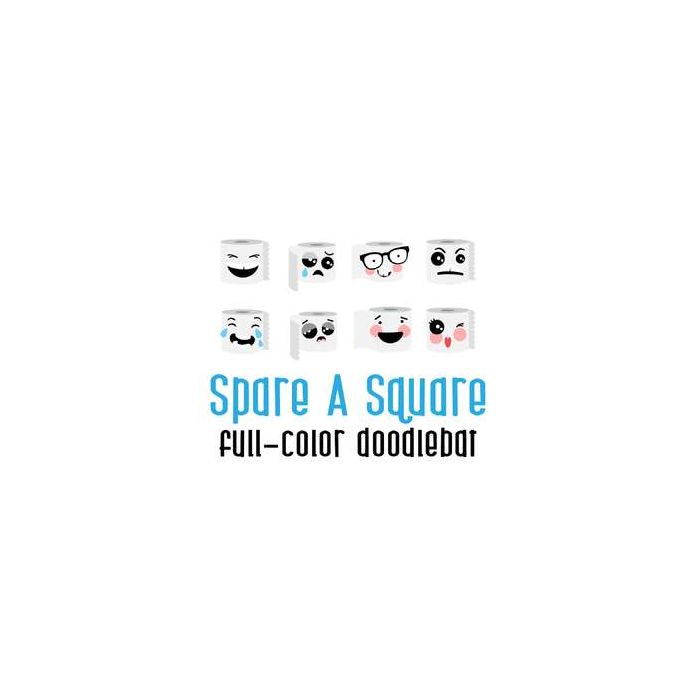
A full-color font stores svg data inside an Open Type font file. This font will look black if not used in a program like Silhouette Studio which is compatible.
This fun full-color font features 26 emoticon toilet paper rolls. Perfect for cards, gifts, decor, crafts, scrap book pages, planner stickers and more!